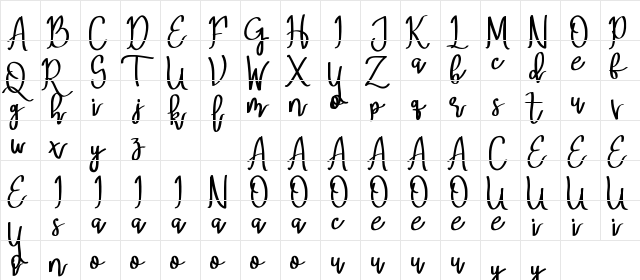
Mery Qolby Demo Regular
| Foundry | Edric Studio |
| Designer | Aghnia Nurul Yasmine |
Design Context for Mery Qolby Demo Typeface
Mery Qolby Demo is a composed and adaptable typeface that performs quietly and consistently across a wide range of design contexts.